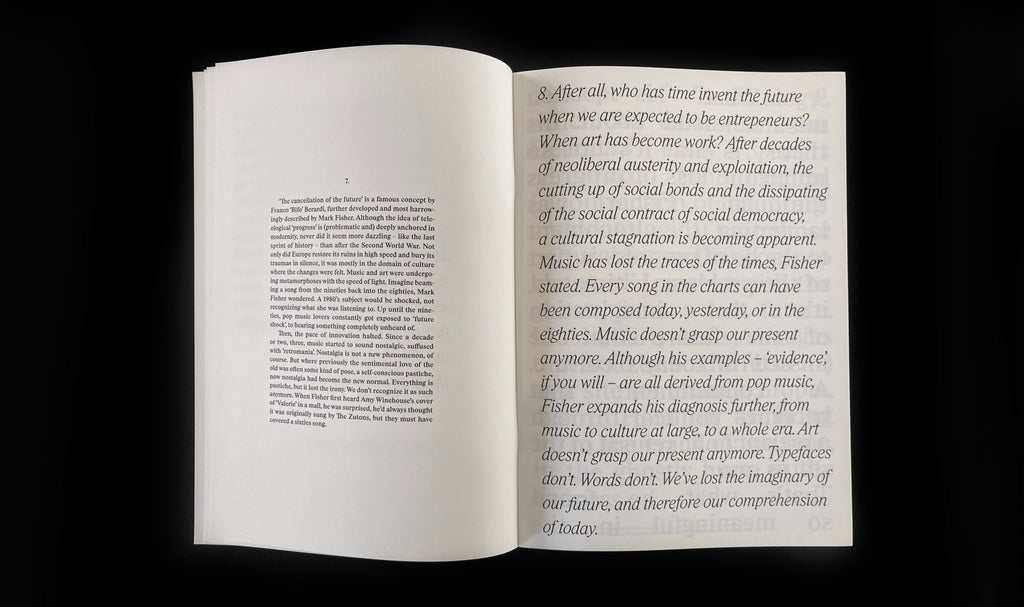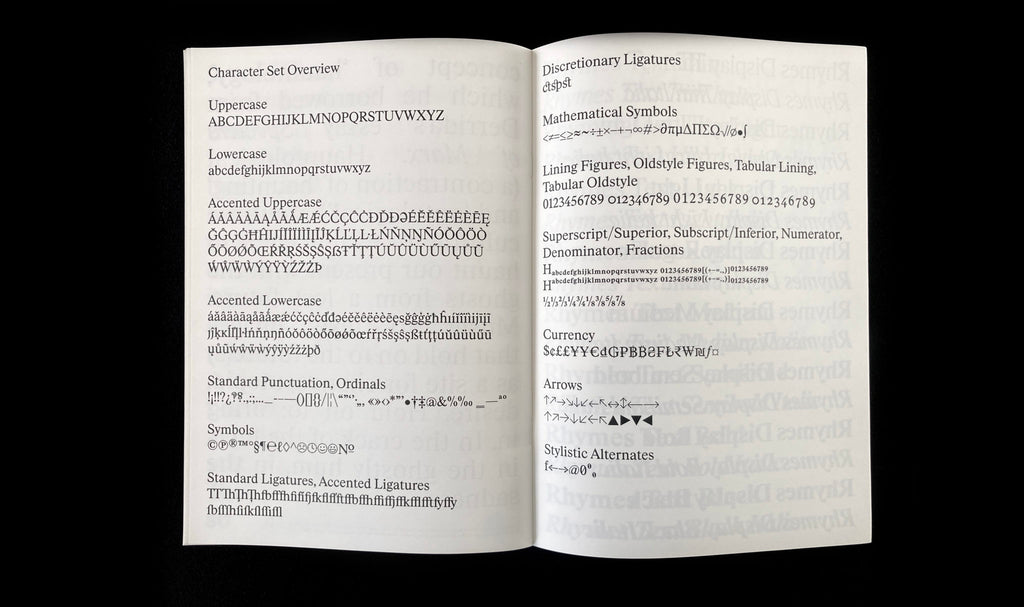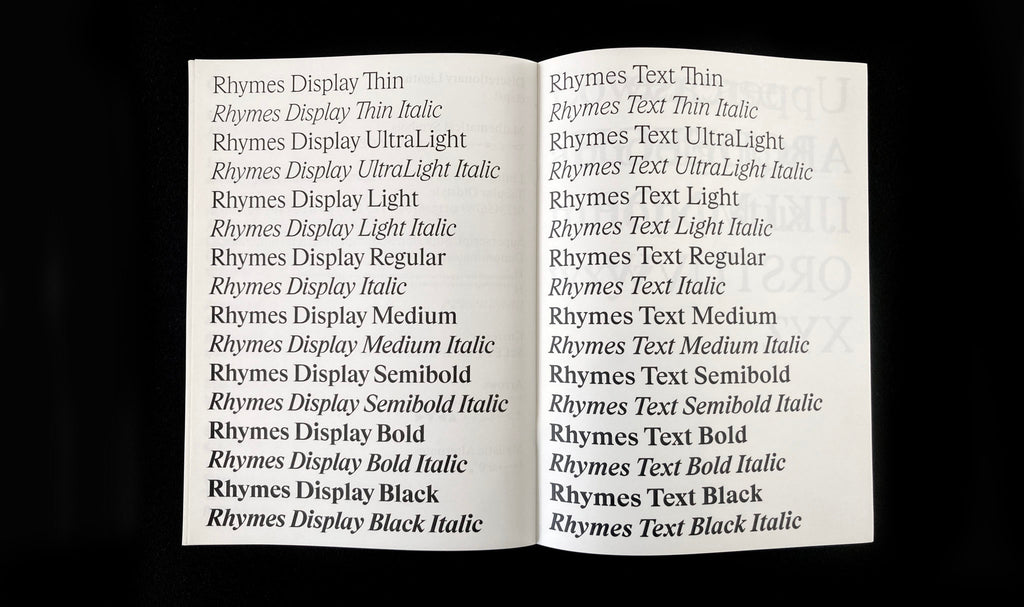
Rhymes Typeface Specimen
Rhymes is a contemporary synthesis of the original, undigitized Times New Roman and another undigitized derivation, Times Book. Rather than a strict redesign, it’s a rhyme, drawing on the untapped potential of the early Times typeface. Rhymes was drawn between 2017 and 2021 by the Czech designer Jakub Samek.
This typeface specimen, which features texts by Persis Bekkering and Jakub Samek, was published on the occasion of the Jan van Eyck Academy Open Studios 2021.
Designed by Martin Groch & Jakub Samek
Published by Maxitype, 2021